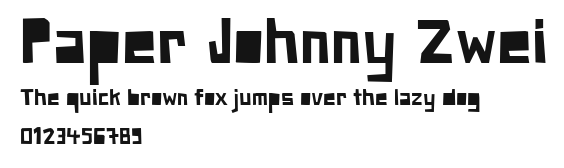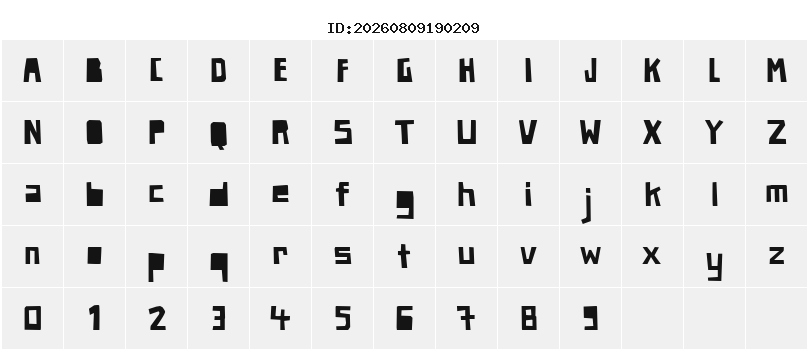
Paper Johnny Zwei.ttf is a modern, elegant sans-serif font designed for ultimate readability and visual harmony. Perfect for branding, headlines, web design, and print materials.